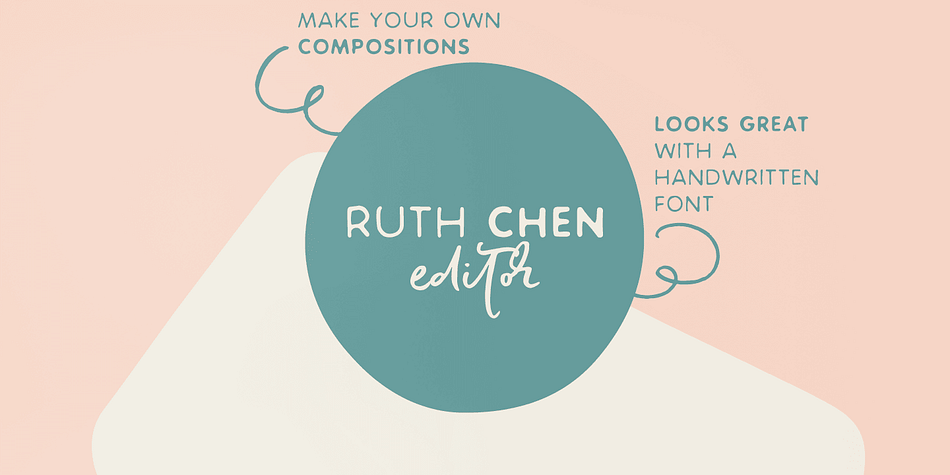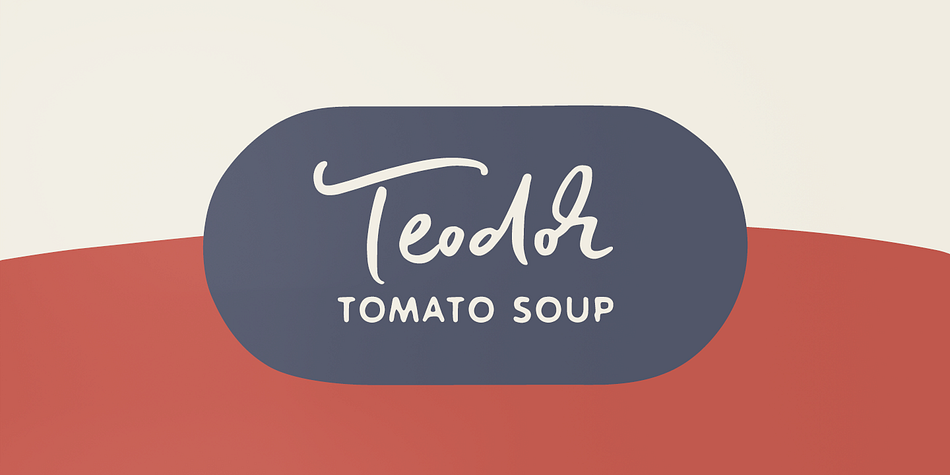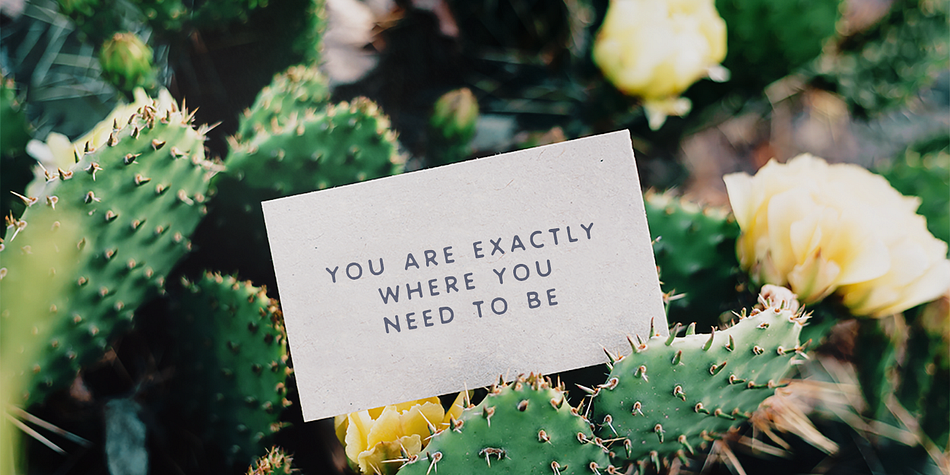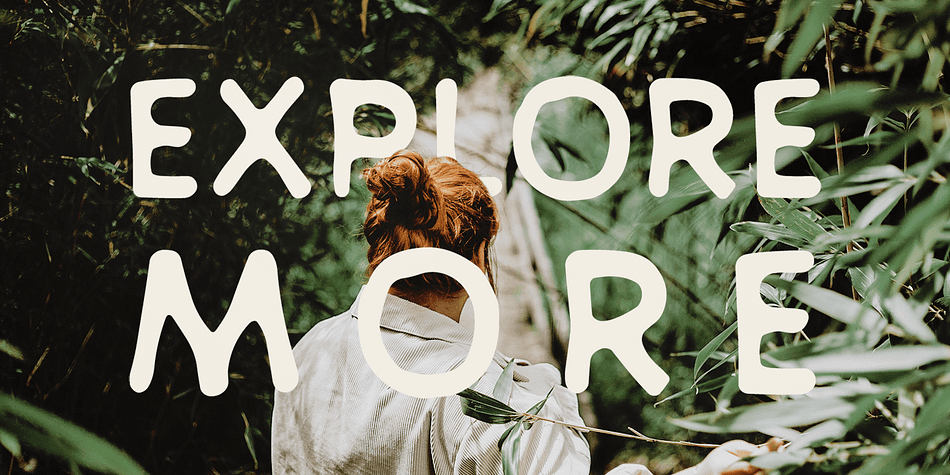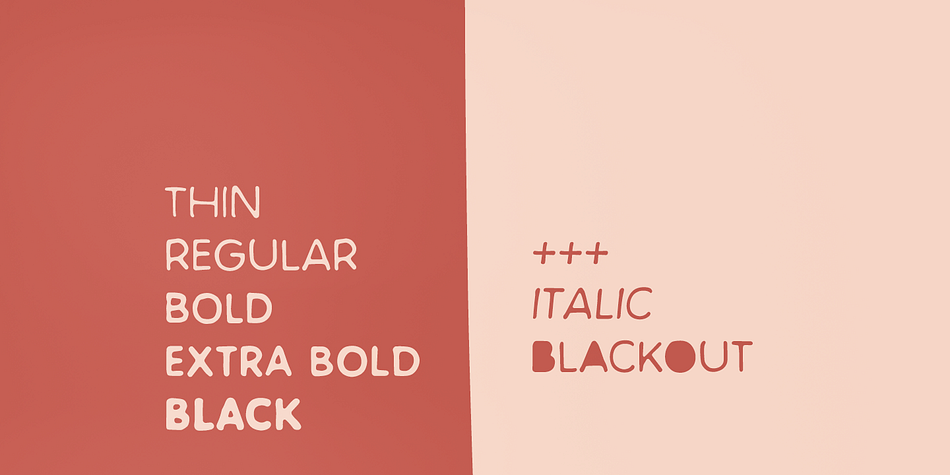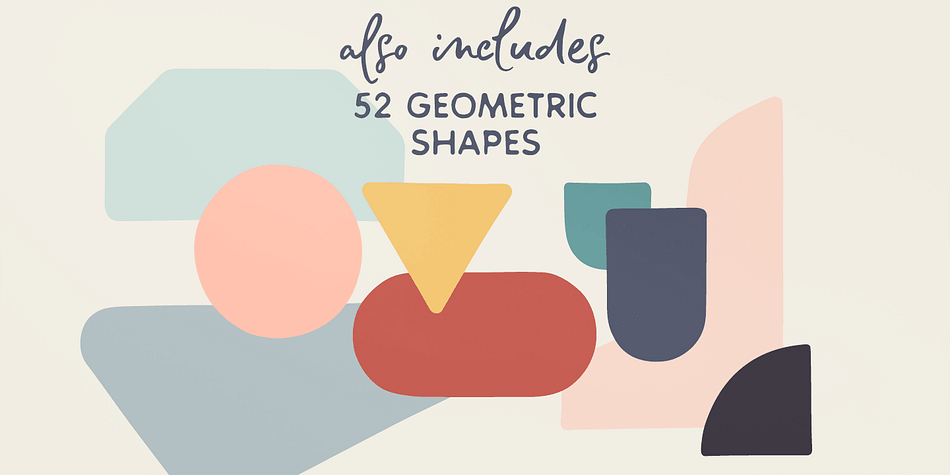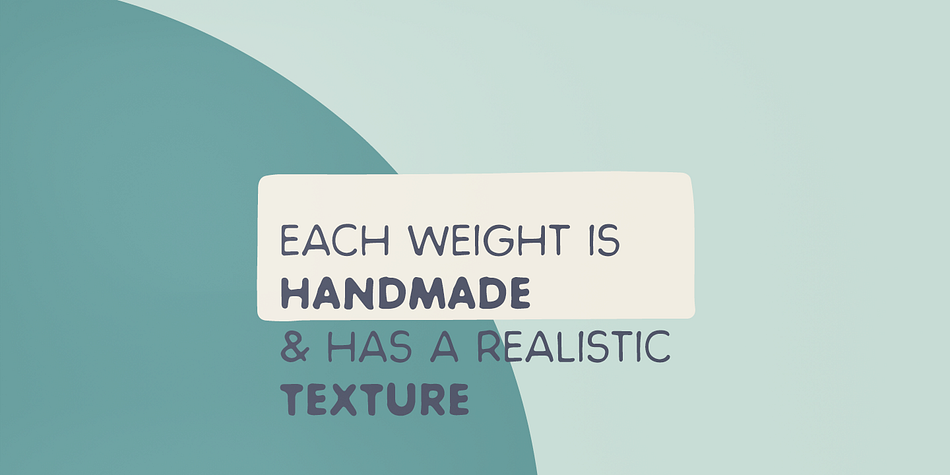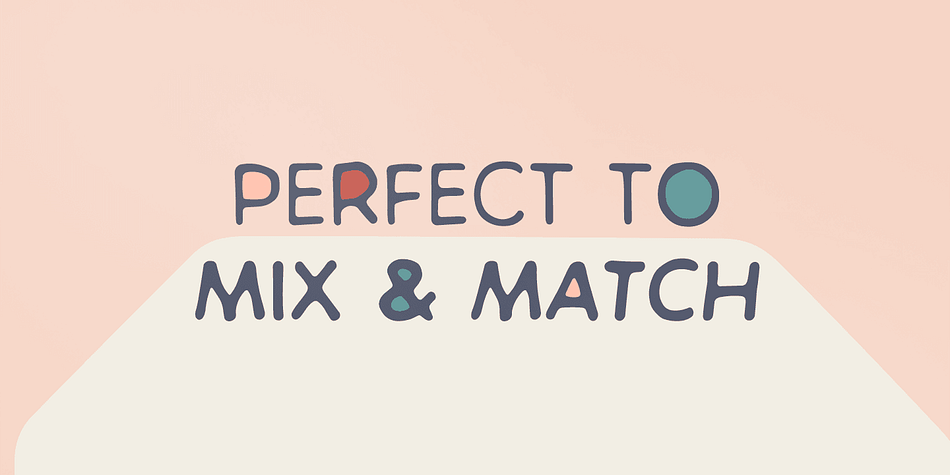
Designed by Ana Parracho, Rockford is a comic, hand display and dingbat font family. This typeface has twenty-one styles and was published by Ana's Fonts.
Rockford is a hand-drawn sans serif font in all caps and 5 weights. It includes four styles: regular, italic blackout, and blakout italic, for a total of 20 fonts. Plus! a bonus shapes fonts that are perfect to add some geometric interest to your designs.
Rockford sans font family includes:
- 4 font styles: regular, italic, blackout, and blackout italic
- 5 handmade weights, each drawn separately: thin, regular, bold, extra bold and black
- 1 shapes font with 26 shapes and variations (52 glyphs in total)
Use it in any designs that need a clean and geometric, but still handmade feel. Use it it social media, packaging and branding, logotypes, bullet journals, etc.